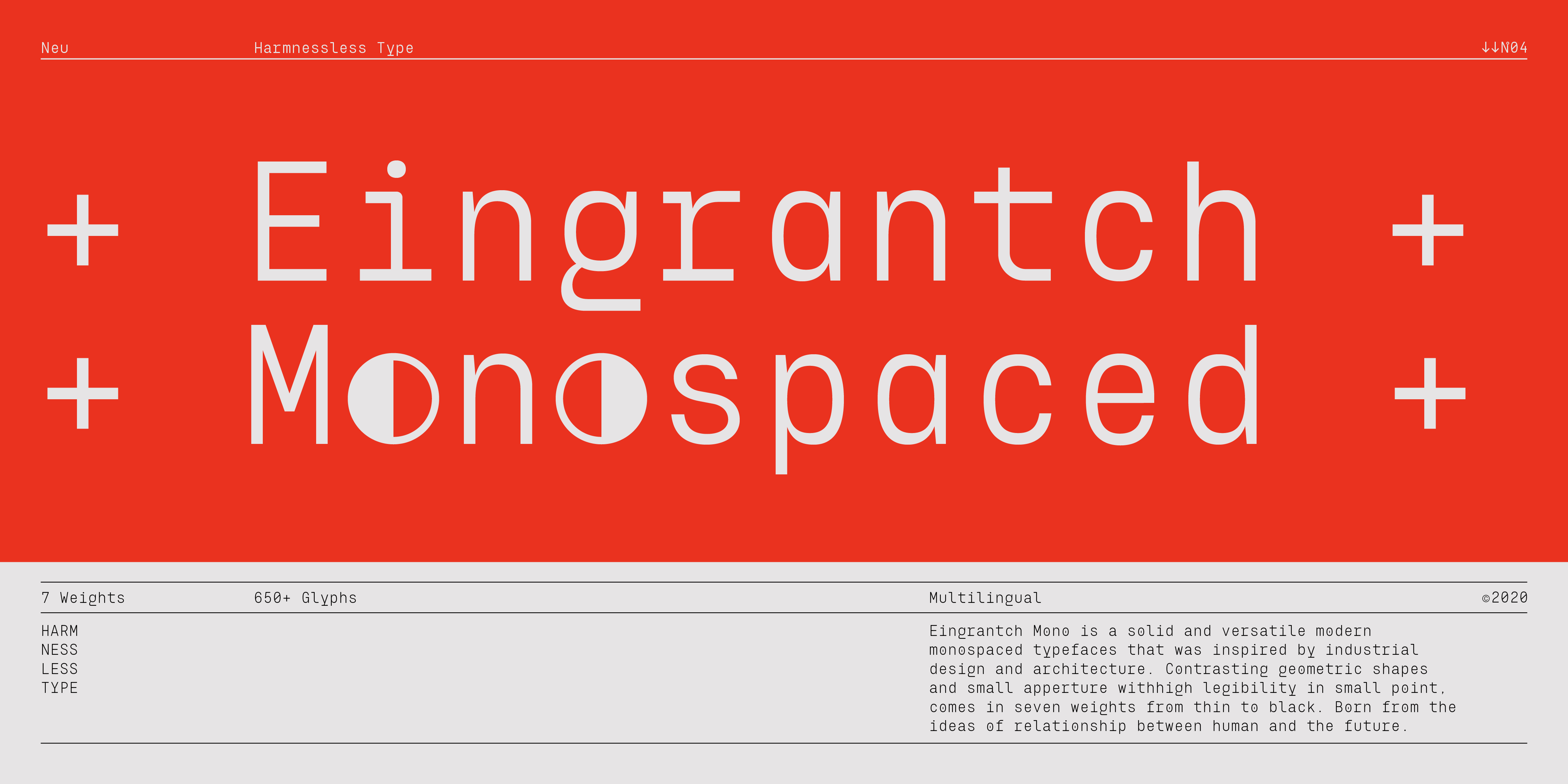
Eingrantch Mono Font Free Download is a modern, monospaced typeface designed for versatility and functionality. Perfect for coding, technical documentation, branding, logos, and projects requiring precise, uniform spacing, this font combines a clean, no-nonsense aesthetic with a unique, contemporary look. Eingrantch Mono Font is ideal for designs that need both readability and a sleek, modern feel.
With Eingrantch Mono Font Free Download, you’ll receive a complete set of uppercase letters, lowercase, numbers, and essential punctuation, offering flexibility for various digital and print applications. Whether you’re designing code snippets, tech branding, or minimalist graphics, this font provides clear legibility and a professional edge.
Add precision and modernity to your design projects with Eingrantch Mono Font Free Download. Its clean, functional style makes it the perfect choice for projects that require clarity, efficiency, and a professional touch.